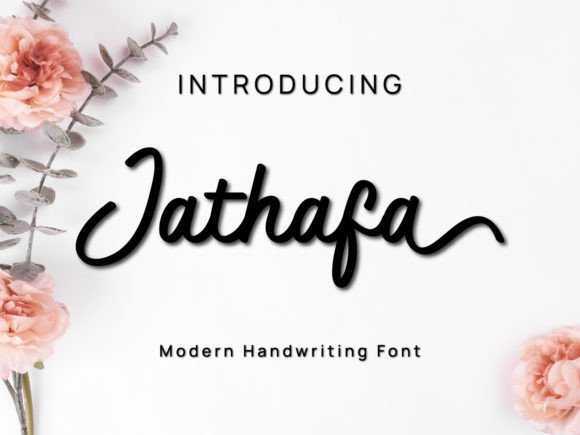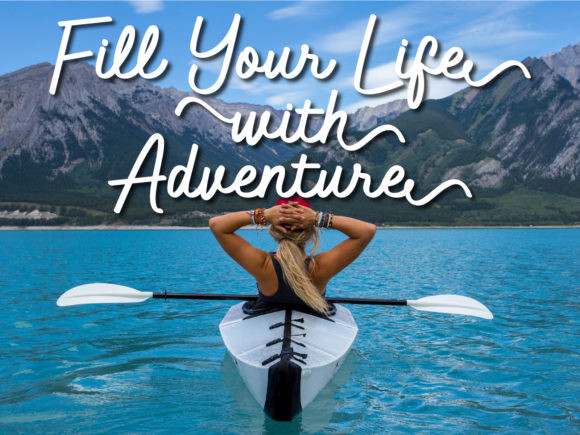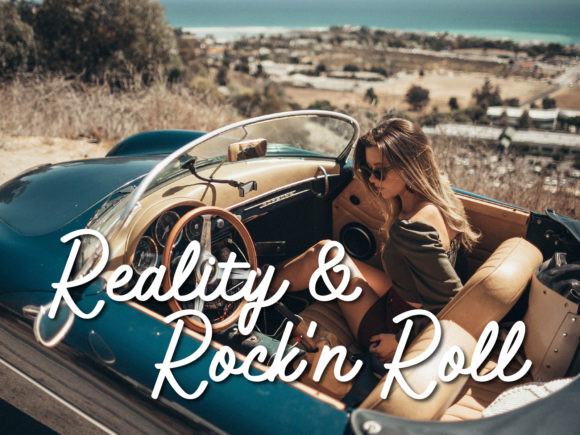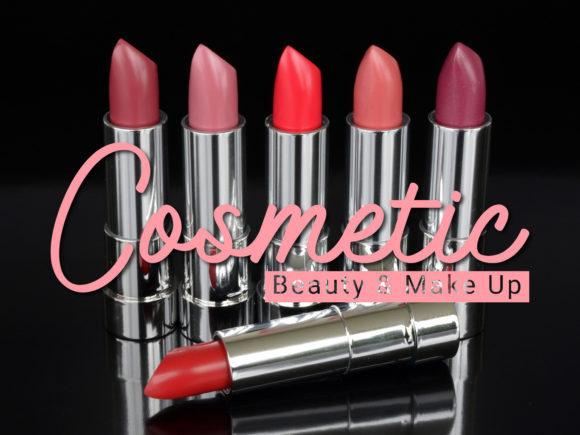
Jathafa Font
Jathafa is a cute and casual handwritten font with a very friendly feel. Whether you’re looking for fonts to make beautiful wedding invitations, beautiful artwork, interesting social media posts, and funny greeting cards.